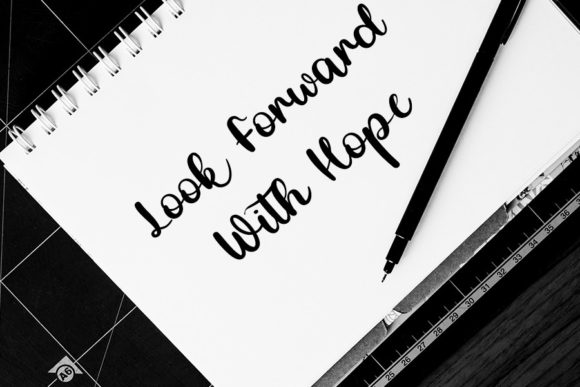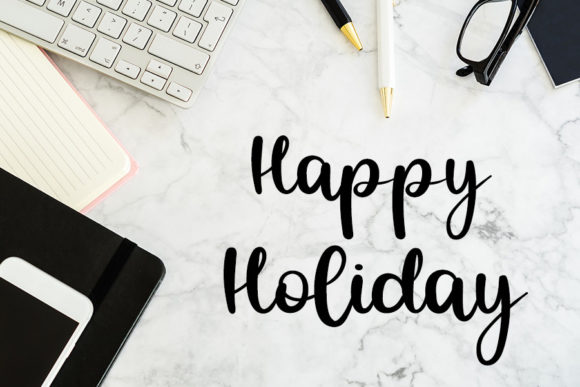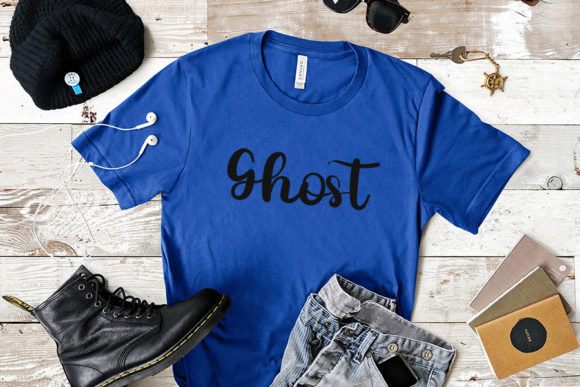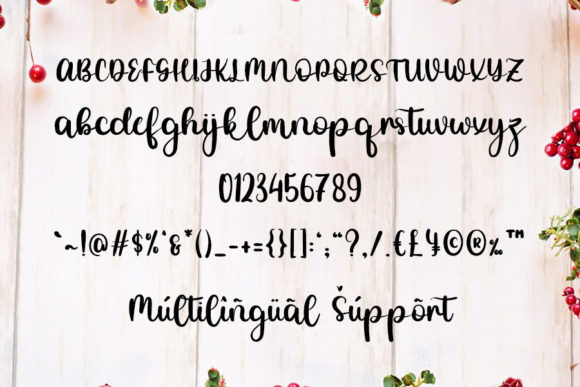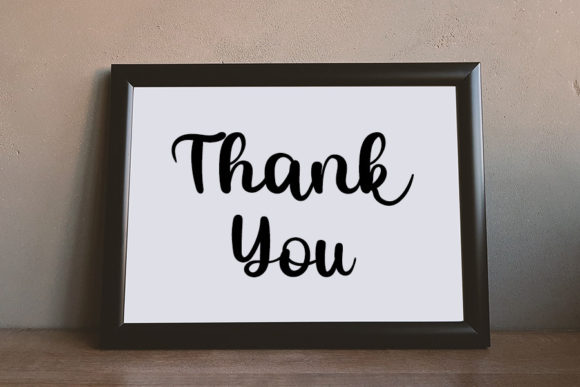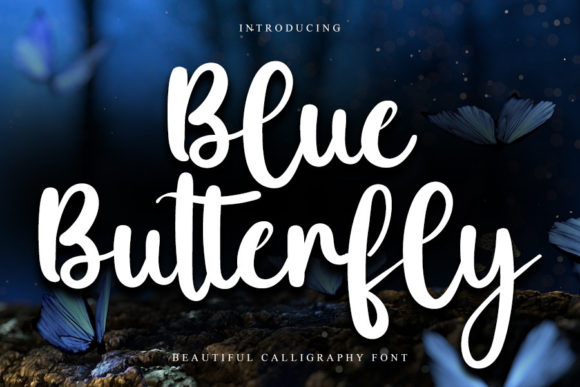
Introducing Blue Butterfly Font: Elevate Your Designs with Elegance
Are you on the hunt for a font that adds a touch of sophistication and style to your projects? Look no further than the Blue Butterfly Font. This stunning handwritten font is designed to bring a contemporary atmosphere and impeccable form to your designs, inspired by timeless classic calligraphy.
What Makes Blue Butterfly Font Stand Out?
The Blue Butterfly Font is not just any ordinary font. Its unique blend of balance and variation makes it the perfect choice for designers and crafters looking to elevate their work. Not too thin and not too thick, this font strikes the perfect balance, ensuring that your text is always legible and visually appealing.
Key Features of Blue Butterfly Font
- Contemporary yet Classic: The Blue Butterfly Font boasts a modern feel with a classic twist, making it versatile for a wide range of projects.
- Balanced and Varied: With its carefully crafted strokes, this font offers a beautiful inconsistency that mimics handwriting, adding a personal touch to your designs.
- Impeccable Form: Inspired by classic calligraphy, the Blue Butterfly Font maintains a high level of sophistication, perfect for projects that require a touch of elegance.
- Easy to Read: The font’s balanced thickness ensures that it’s easy to read, making it suitable for both headings and body text.
Whether you’re working on a branding project, creating wedding invitations, designing a website, or crafting a social media post, the Blue Butterfly Font is an excellent choice. Its versatility and stylish appearance make it suitable for:
- Branding and Logos: Stand out with a unique and memorable font that captures the essence of your brand.
- Wedding and Event Stationery: Add a touch of romance and sophistication to your invitations, menus, and other event materials.
- Web Design: Enhance the user experience with a beautiful, readable font that works well across various devices.
- Social Media Graphics: Create eye-catching posts and stories that engage your audience with the Blue Butterfly Font’s stylish appeal.
Why Choose Blue Butterfly Font?
In a world where fonts are plentiful, the Blue Butterfly Font stands out for its unique combination of style, versatility, and readability. Here are a few reasons why designers and crafters are falling in love with it:
- Unique Style: The Blue Butterfly Font offers a distinct look that can set your projects apart from the rest.
- Time-Saving: With its excellent legibility and stylish appearance, you can create stunning designs in less time.
The Blue Butterfly Font is more than just a font – it’s a design tool that can elevate your projects to new heights. With its stylish appearance, impeccable form, and versatility, it’s an excellent addition to any designer’s toolkit. Whether you’re a professional designer or a crafting enthusiast, the Blue Butterfly Font invites you to explore new creative possibilities and bring your designs to life in a stylish and sophisticated way.